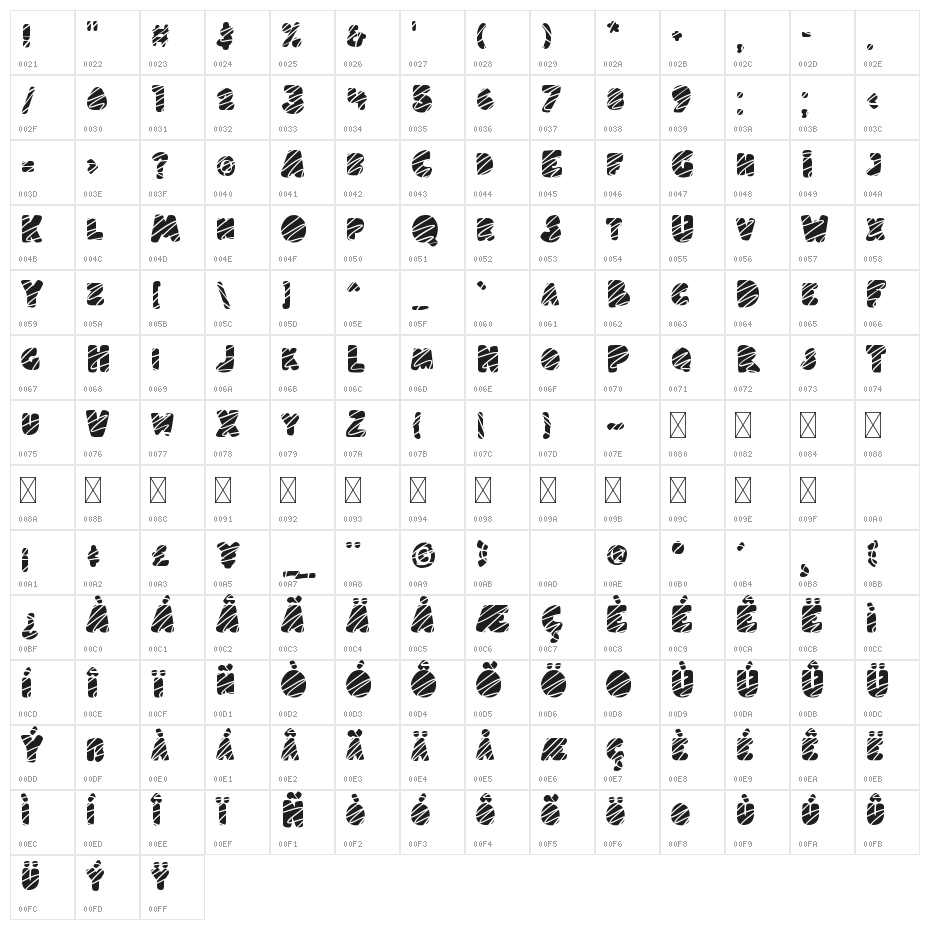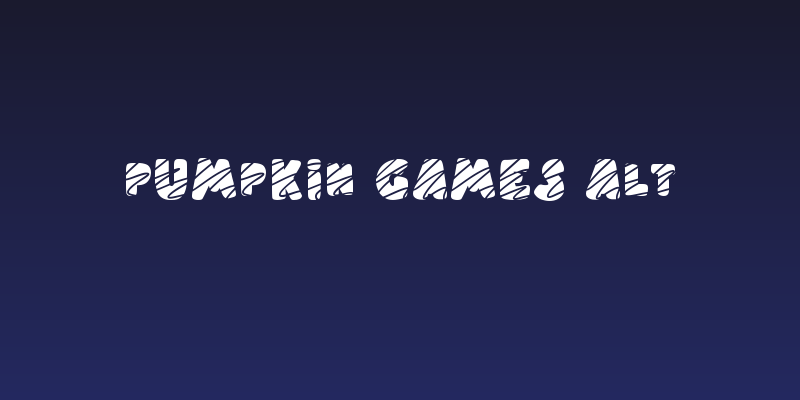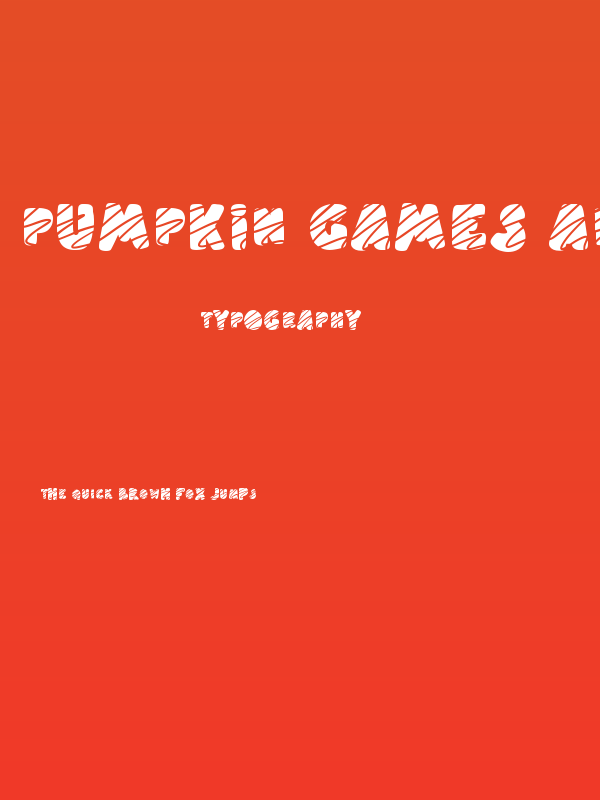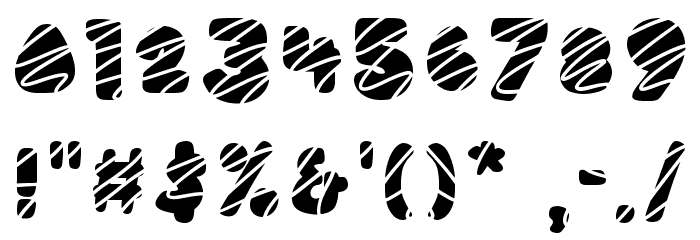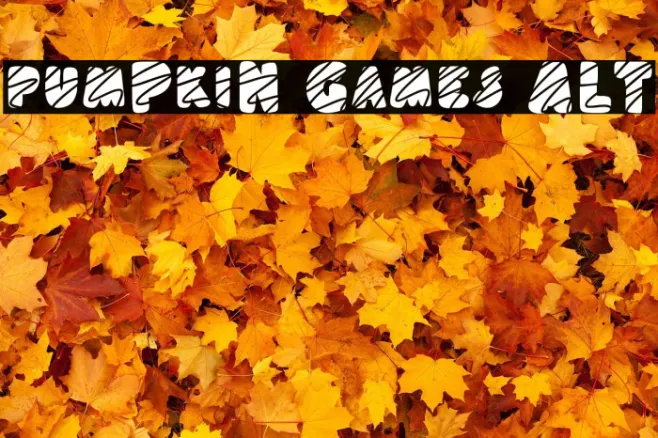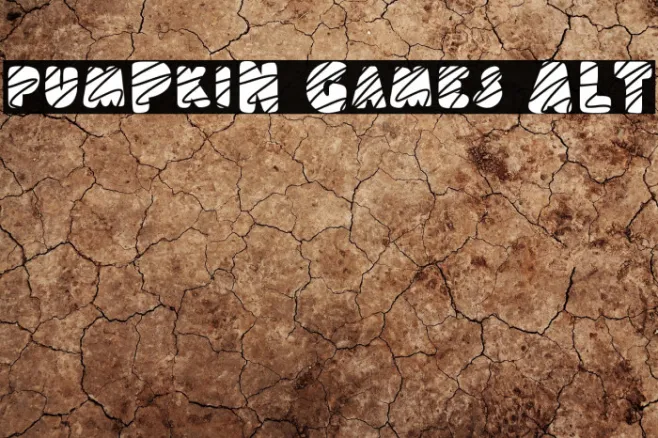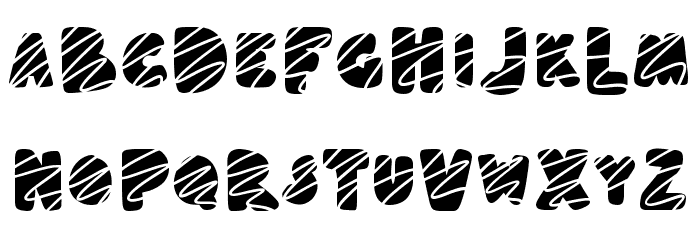
Pumpkin Games Alt Font
Pumpkin Games Alt Description
This font features a bold and playful design with a unique striped pattern running through each character. The letters are rounded and chunky, giving them a friendly and approachable appearance. The uppercase and lowercase letters maintain a consistent style, with the stripes adding a dynamic and energetic feel. The numbers and special characters follow the same design principles, ensuring a cohesive look across all elements. The font's decorative nature makes it stand out, perfect for projects that require a fun and engaging visual impact.
| Overall Style | Playful, Decorative |
| Proposed Projects | Ideal for children's books, playful branding, party invitations, and creative posters. |